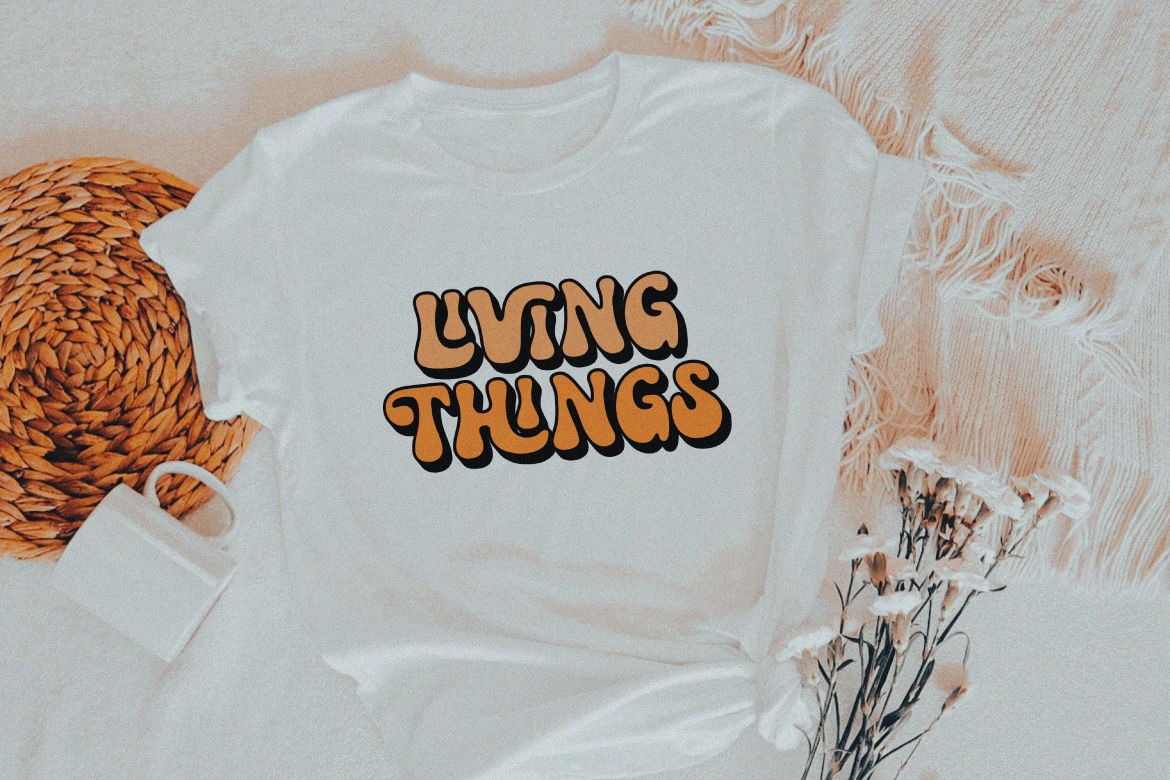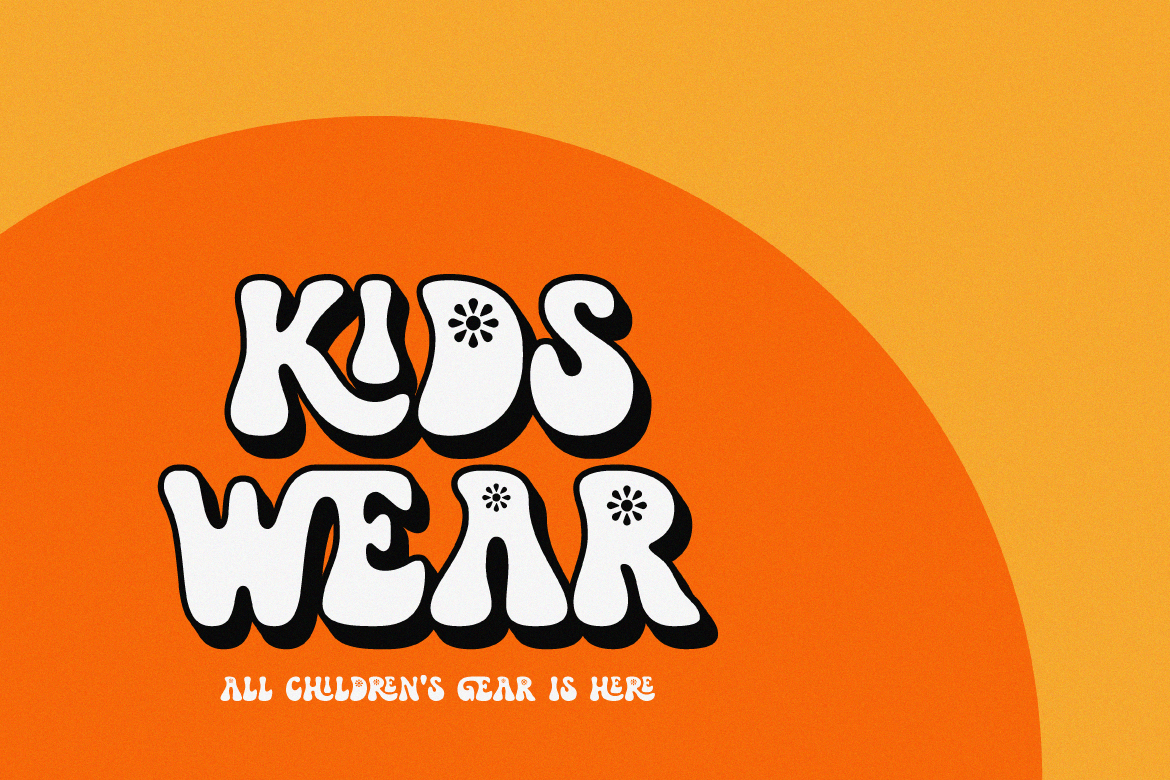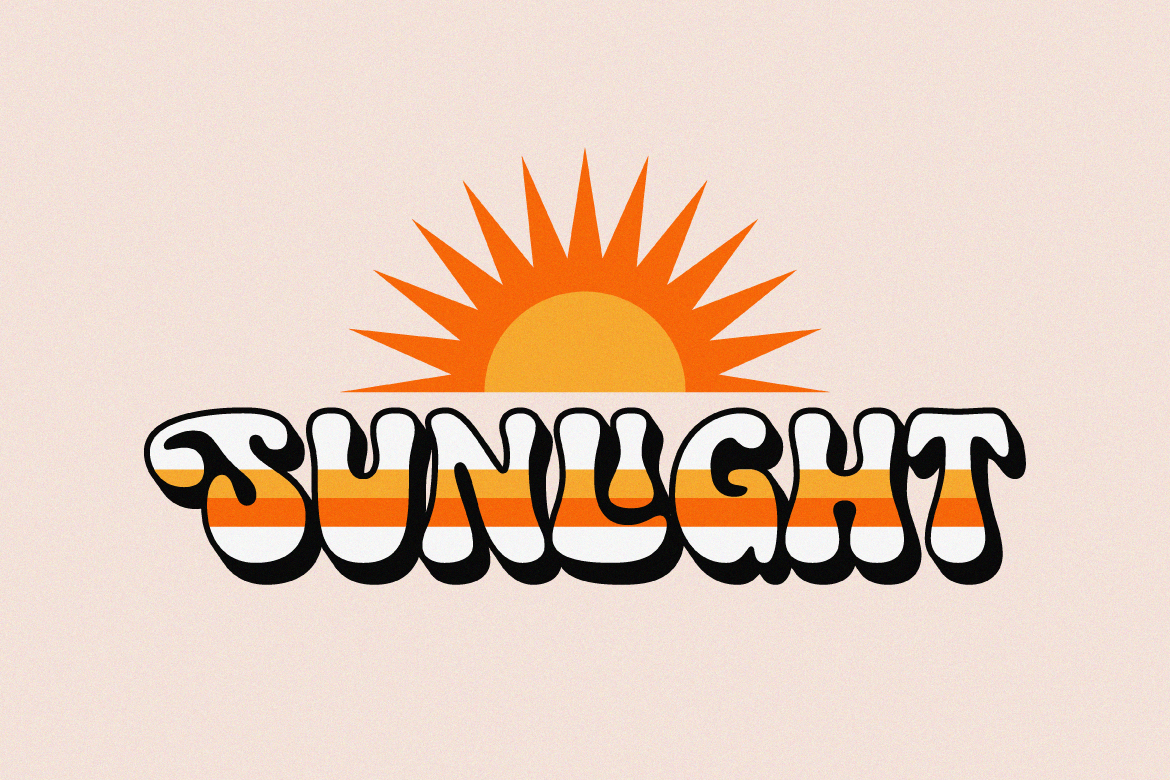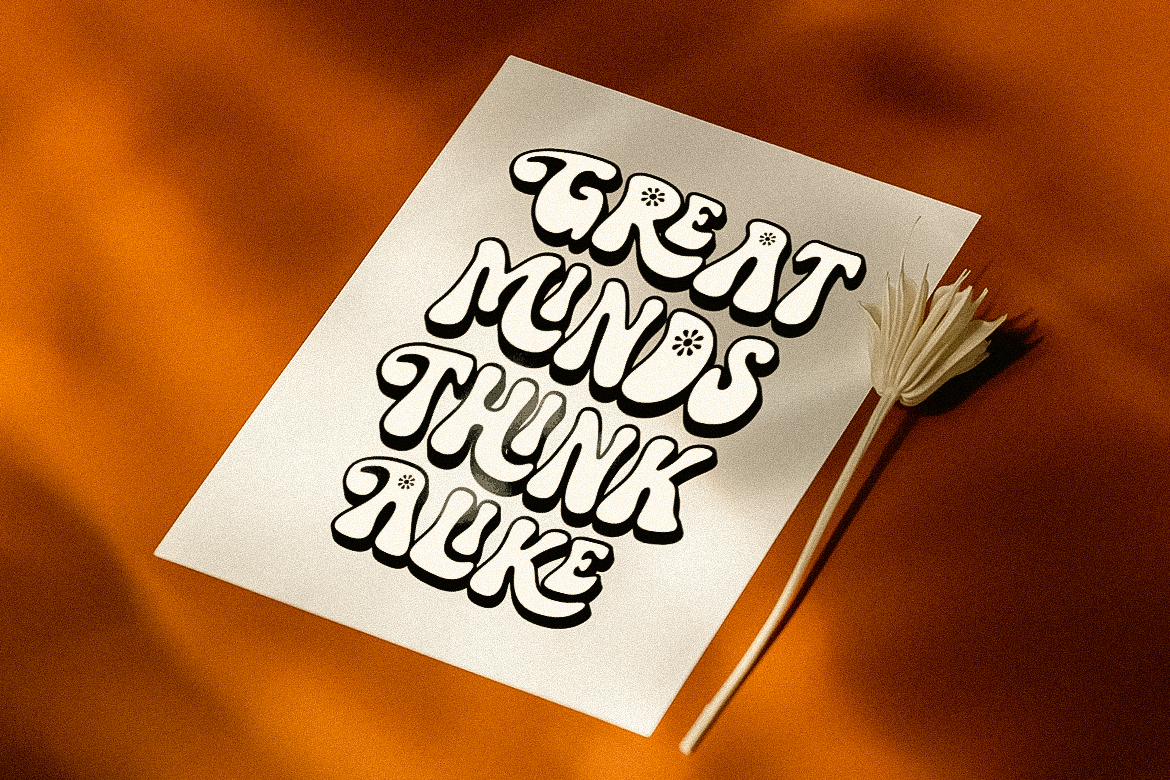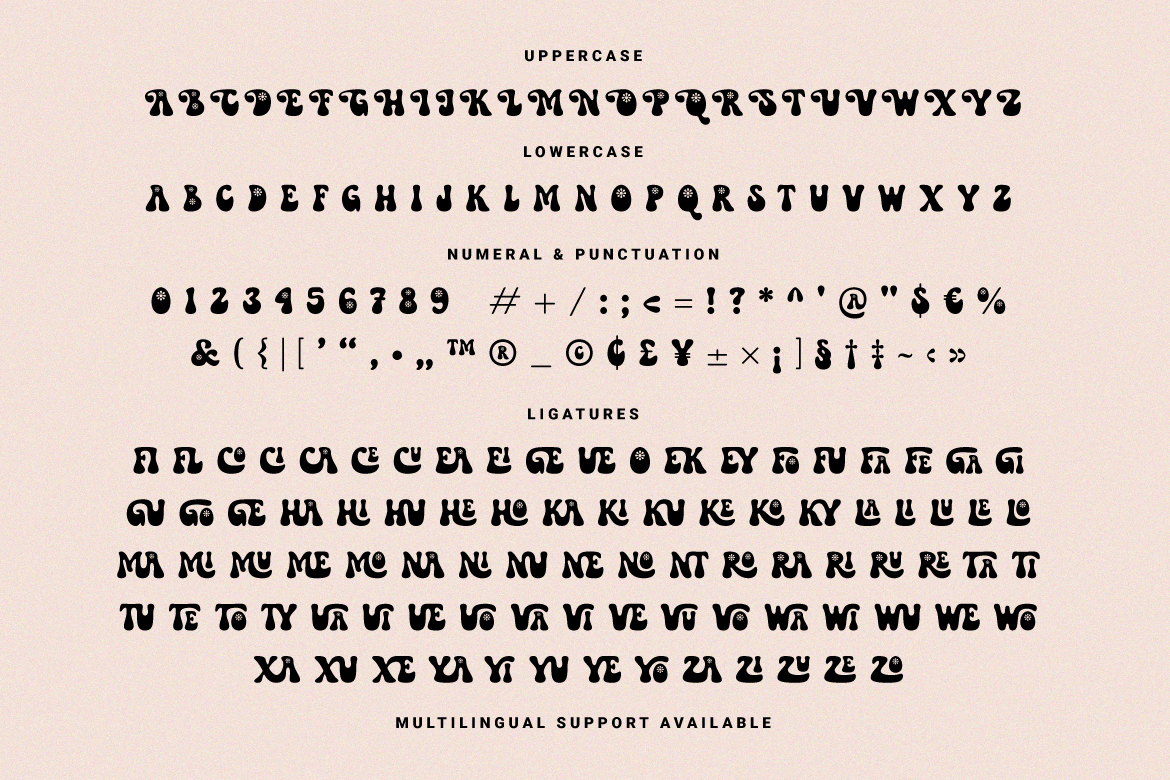
Yonky Display Font
Yonky Display Font By Prioritype Co.
Yonky Display is a really fun hand-drawn font. Consists of two styles namely regular & extrude. Perfect for poster designs, quotes, merchandise, logos and more.
- Features: Uppercase, Lowercase, Numeral, Punctuation, Multilingual & Ligatures.
- Multilingual contained: Afrikaans, Albanian, Asu, Basque, Bemba, Bena, Breton, Catalan, Chiga, Cornish, Danish, Dutch, English, Estonian, Filipino, Finnish, French, Friulian, Galician, German, Gusii, Indonesian, Irish, Italian, Kabuverdianu, Kalenjin, Kinyarwanda, Luo, Luxembourgish, Luyia, Machame, Makhuwa-Meetto, Makonde, Malagasy, Manx, Morisyen, North Ndebele, Norwegian Bokmål, Norwegian Nynorsk, Nyankole, Oromo, Portuguese, Quechua, Romansh, Rombo, Rundi, Rwa, Samburu, Sango, Sangu, Scottish Gaelic, Sena, Shambala, Shona, Soga, Somali, Spanish, Swahili, Swedish, Swiss German, Taita, Teso, Uzbek (Latin), Volapük, Vunjo, Zulu.